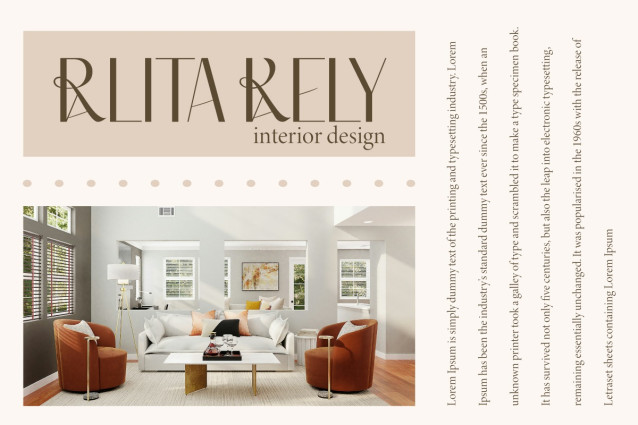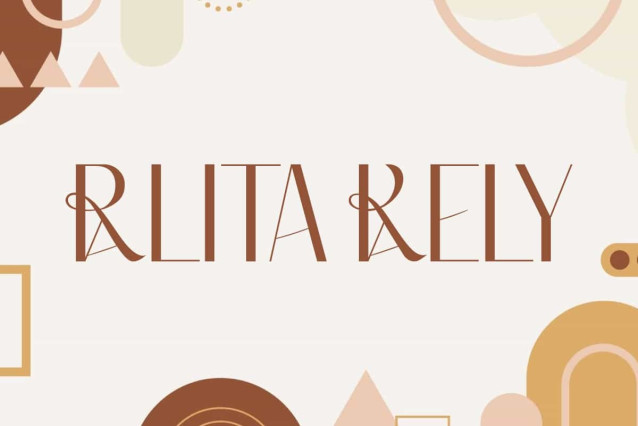
Ralita Kaeli Font
Ralita Kaeli Font is a sans serif display font with a unique typographic look, combining elegant and modern elements. Its slender letters with a touch of curved lines create a luxurious and artistic impression. This font will be perfect for various projects, such as invitation, advertisement, blog, branding image, gift box, label, layout design, quotes, signboard, template design purpose, website, and many more.
Ralita Kaeli Font includes full set of Uppercase and Lowercase Basic Characters, Numerals, Punctuation, and Symbol. This font adds a luxury and classy touch for Ligature character. Making it a perfect choice for a variety of fields, such as fashion, accessories and jewelry, cosmetic, event or wedding organizer, florist, furniture, real estate, skincare, spa salon, etc.